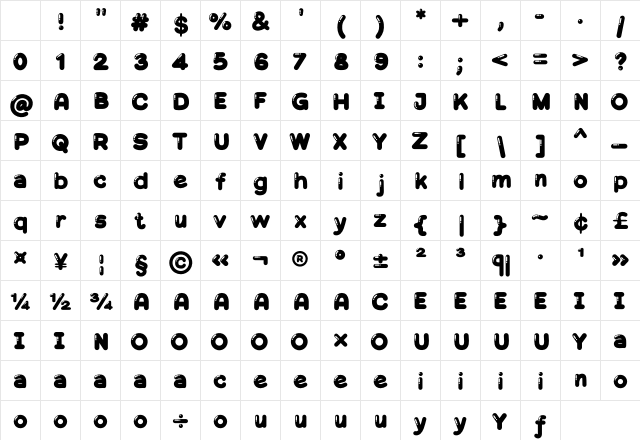
Complete Gokart Bubble Regular glyph index. Displaying only characters natively supported by Gokart Bubble Regular font.
Gokart Bubble has an approachable, lighthearted character - its loose, expressive forms are well-suited to children's content, casual branding, and fun-first design.
Font Pairing: Pairs well with a rounded or humanist sans for body copy, maintaining the friendly tone without relying on Gokart Bubble to carry extended reading.
Pro Tip: Use Gokart Bubble at larger display sizes where its expressive character can land. Pair with a clean, simple sans for body copy to maintain readability.